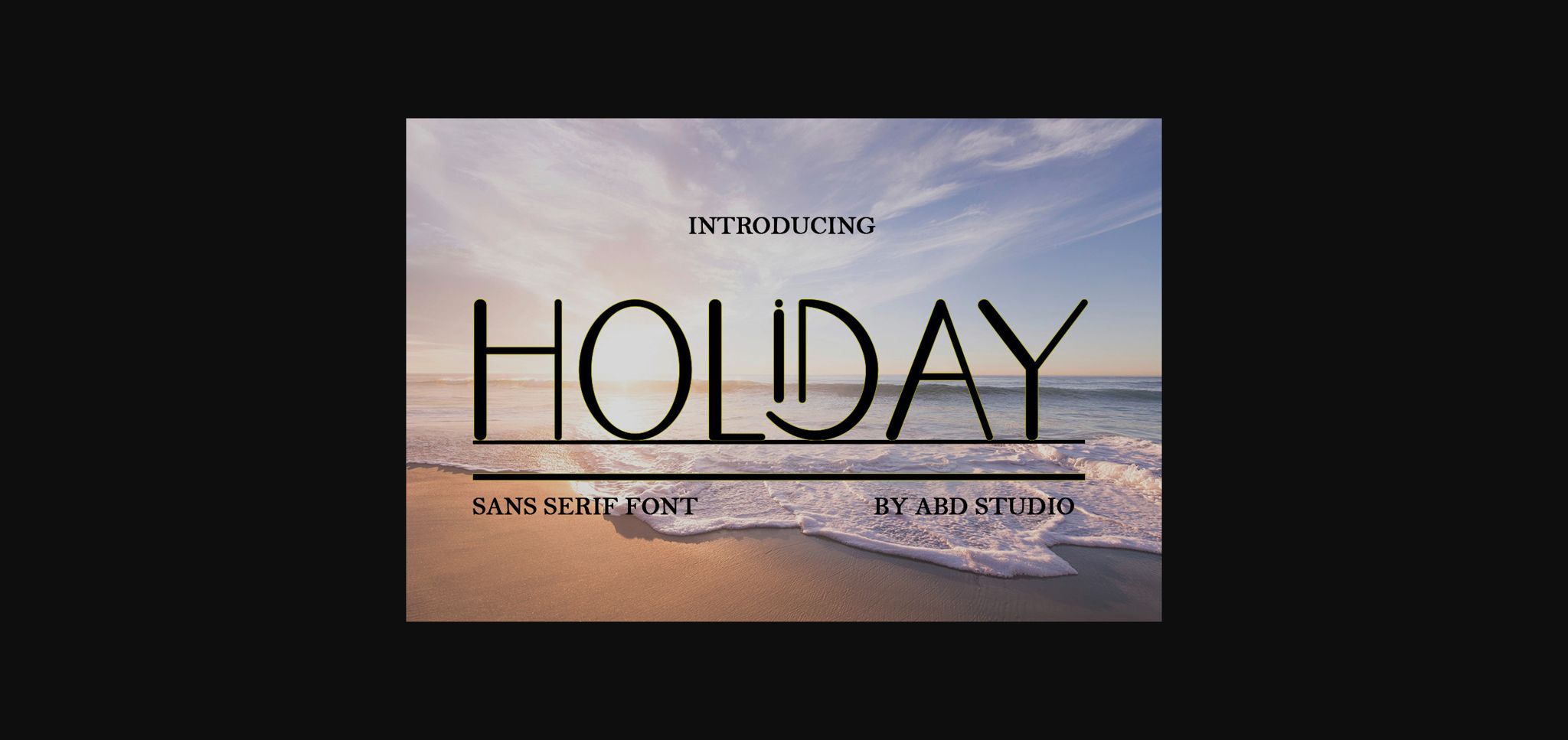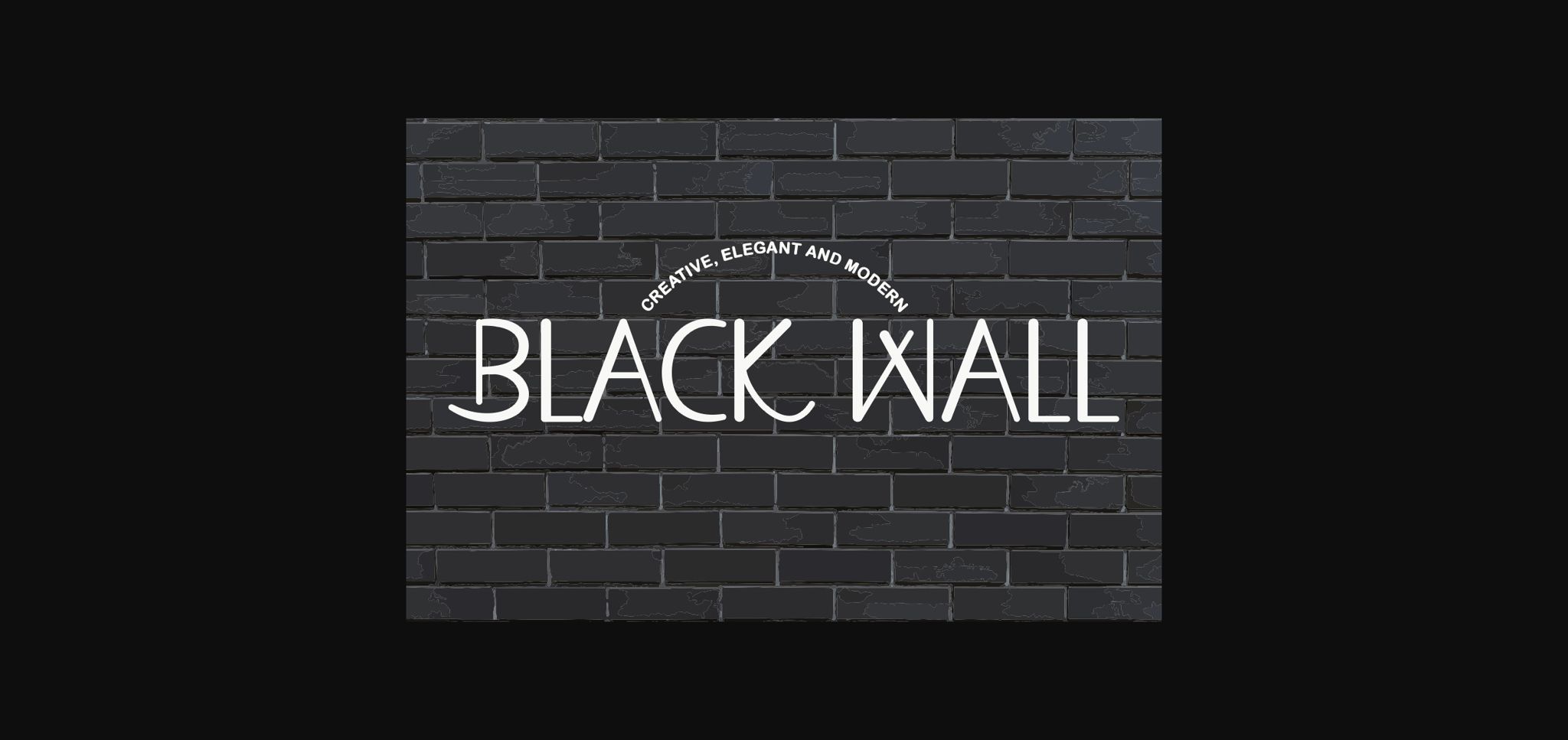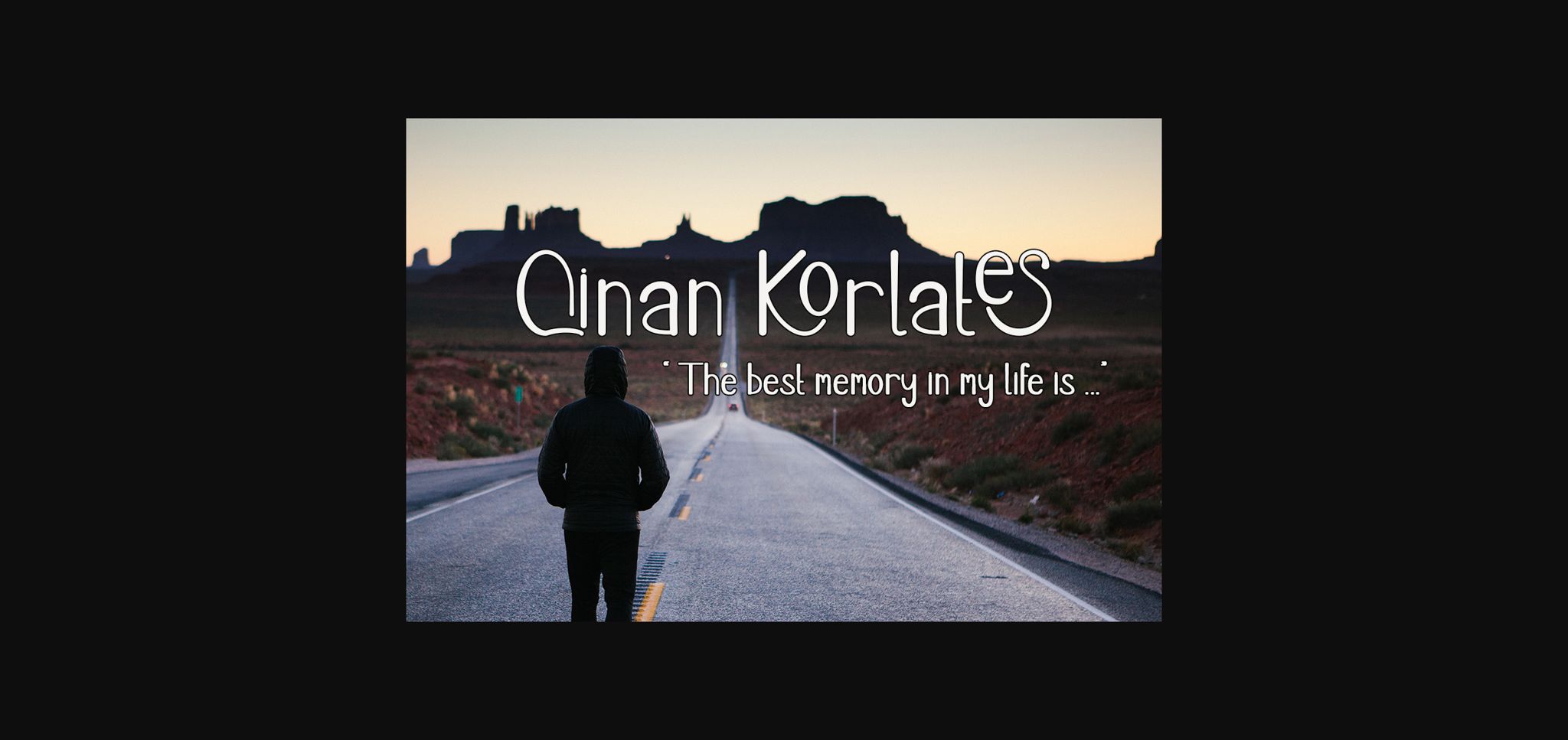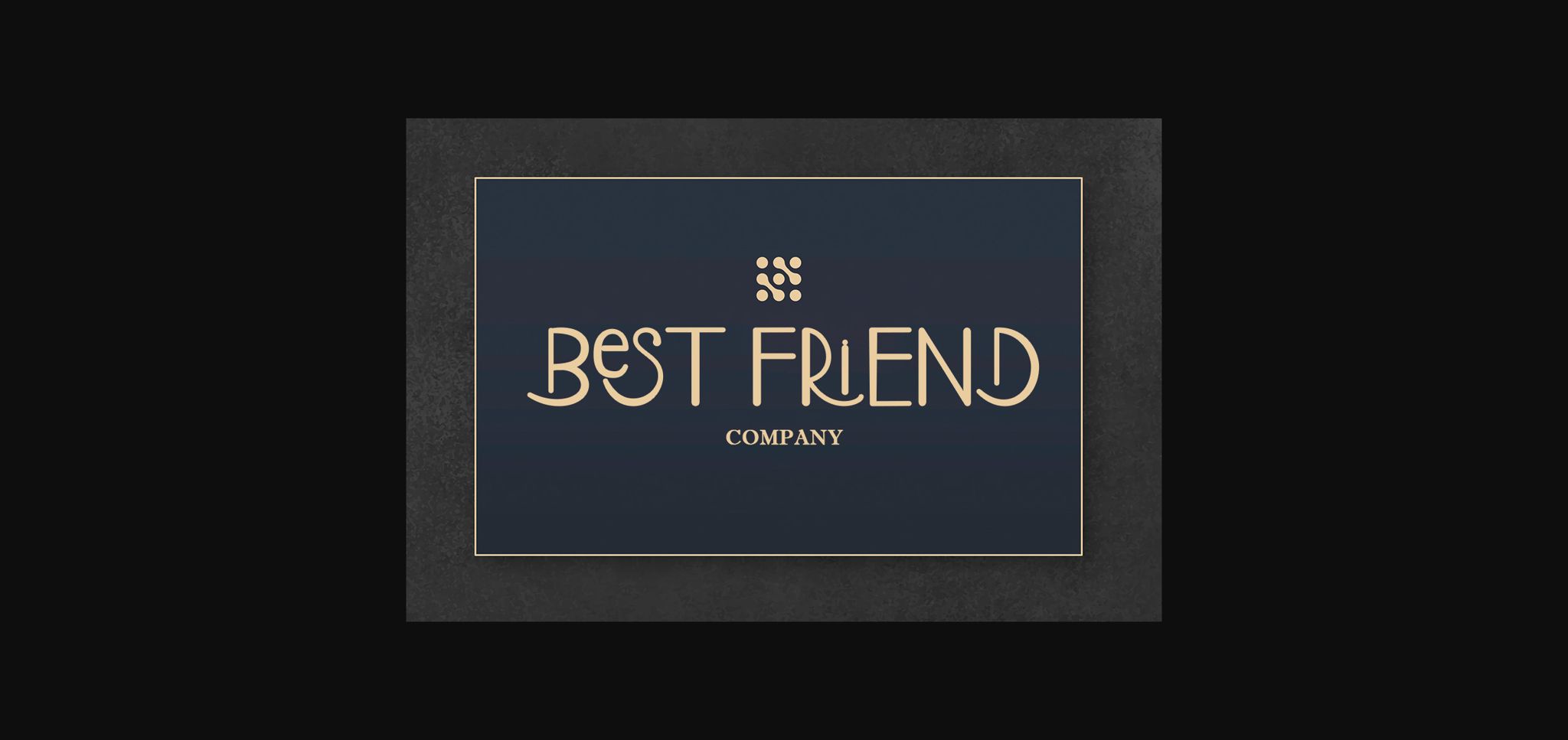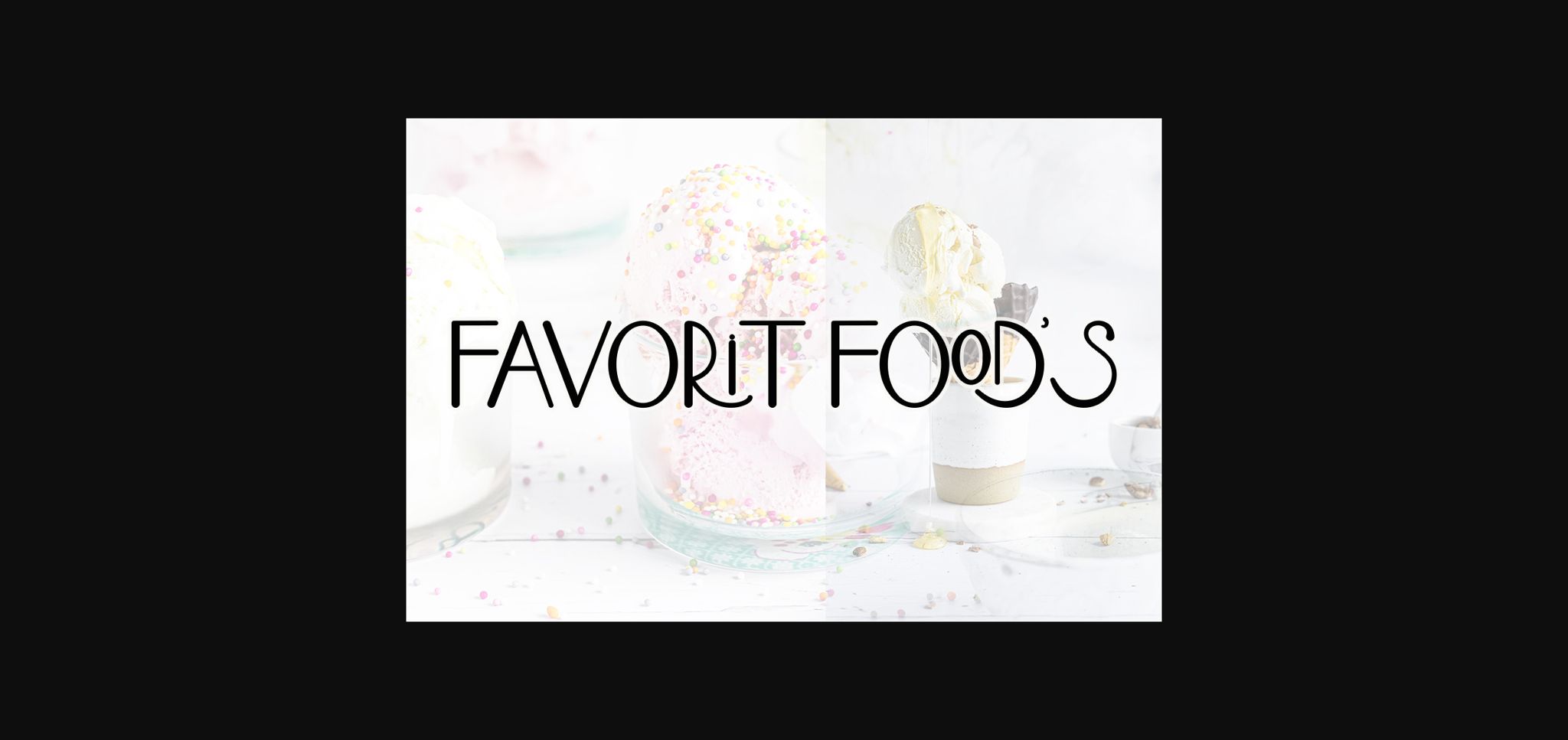
About Holiday Font
Holiday is a sophisticated, charming sans-serif font with a fashionable touch. Specially designed for luxury, elegant, feminine projects, this font is perfectly suitable for creating modern, chic designs. Add it to your creative ideas, and notice how it makes them stand out!